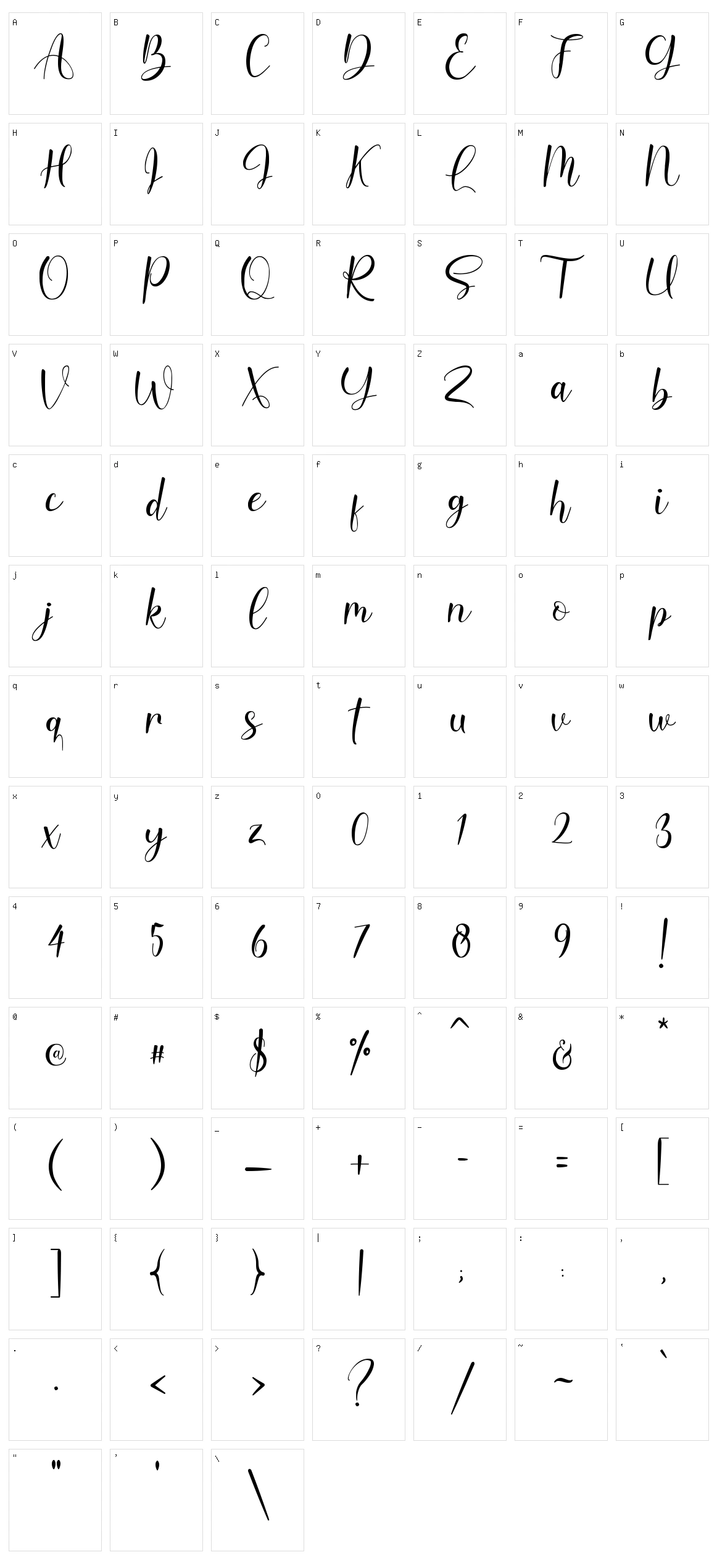
The free font Betterlove is carefully designed by Creaditive Design, showcasing a thoughtful balance of creativity and usability and falls under the Script font style. When you download the ZIP file, it contains only 114.61 KB of font files, making it lightweight and quick to download. Please review the license details below to understand permitted usage and distribution rights. If license information is not available, we recommend using this font for personal projects only or contacting the author directly for commercial usage permissions.